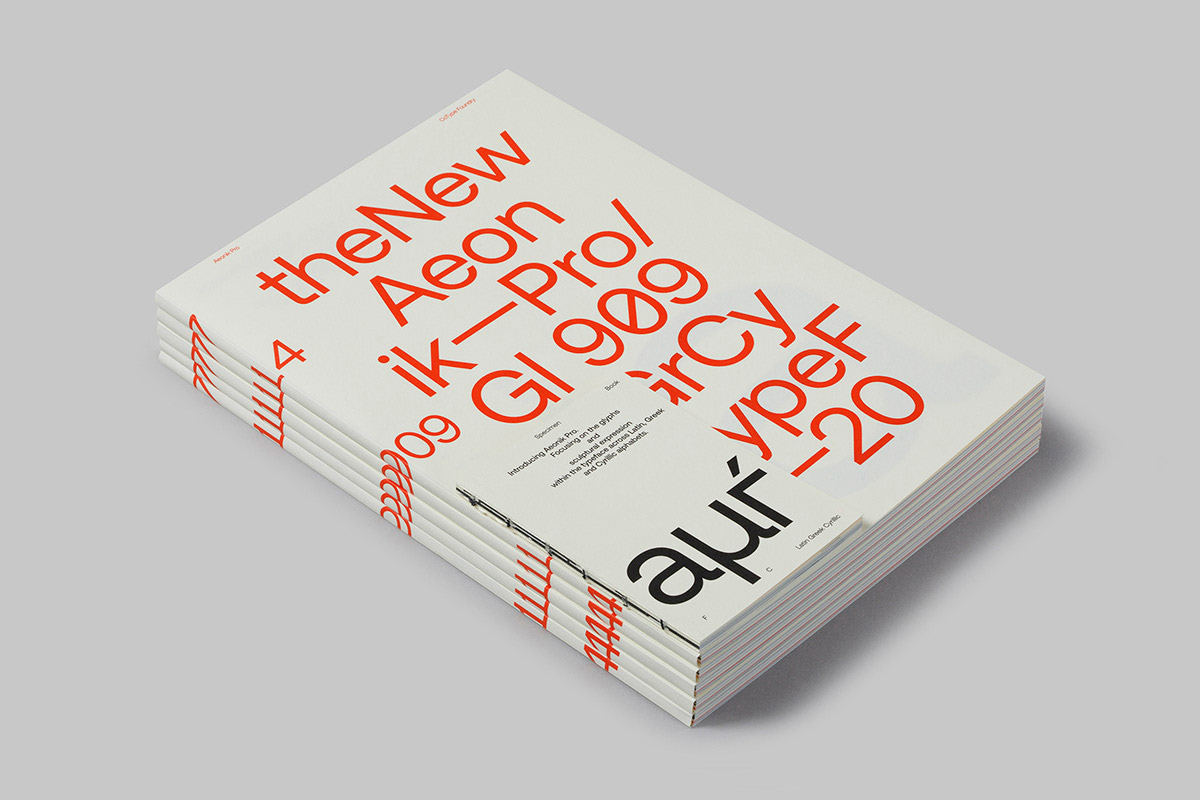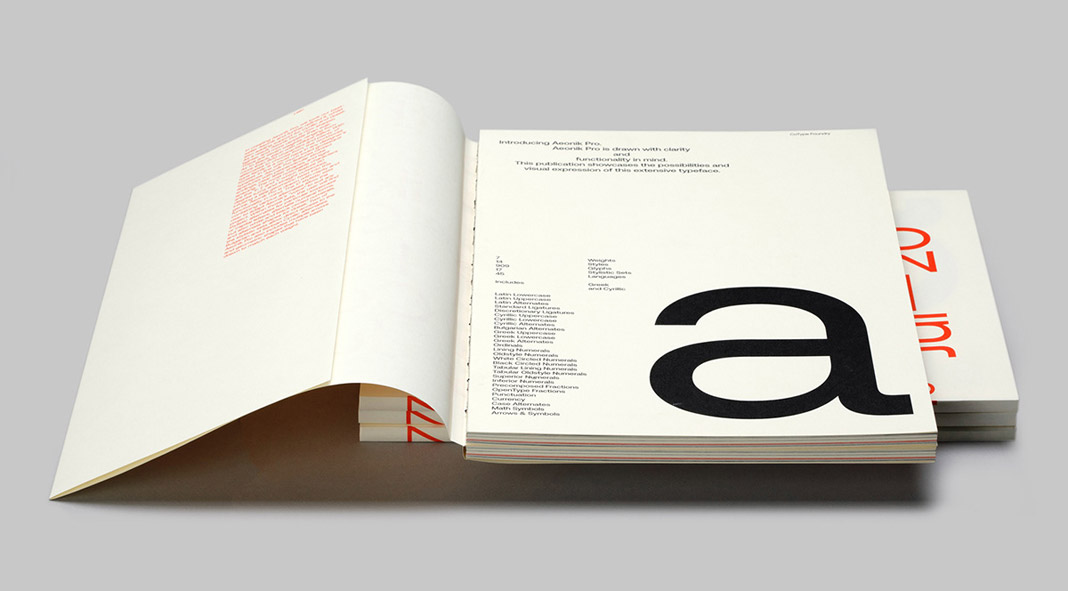
Let’s take a closer look at the specimen book of the Aeonik Pro font family from CoType™ foundry.
When developing Aeonik Pro, the creative folks of CoType™ foundry took their best-selling font-family ‘Aeonik’ and refind it further while adding support for Cyrillic and Greek characters. As a result, Aeonik Pro is now even sharper, firmer, and more versatile than ever before. Please read more below.
Aeonik’s Pro version consists of seven weights ranging from Air to Black. Each style comes with a matching Italic version. The complete family comprises over 900 characters as well as lots of alternates to choose from.
In order to help showcase the font family, CoType™ collaborated with Semiotik Design in Greece to create two specimen books. The small book (approx A6 in size) mainly focuses on the glyphs and sculptural expression within Aeonik Pro while the large book in A4 showcases the possibilities and visual expression of this extensive typeface.